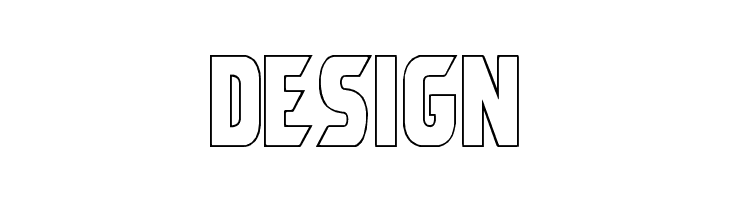
The Copenhagener Outline Font
- Font: The Copenhagener Outline
( Fonts by Niels Bonnevie )
A modern, geometric font with bold, structured characters and consistent stroke widths.